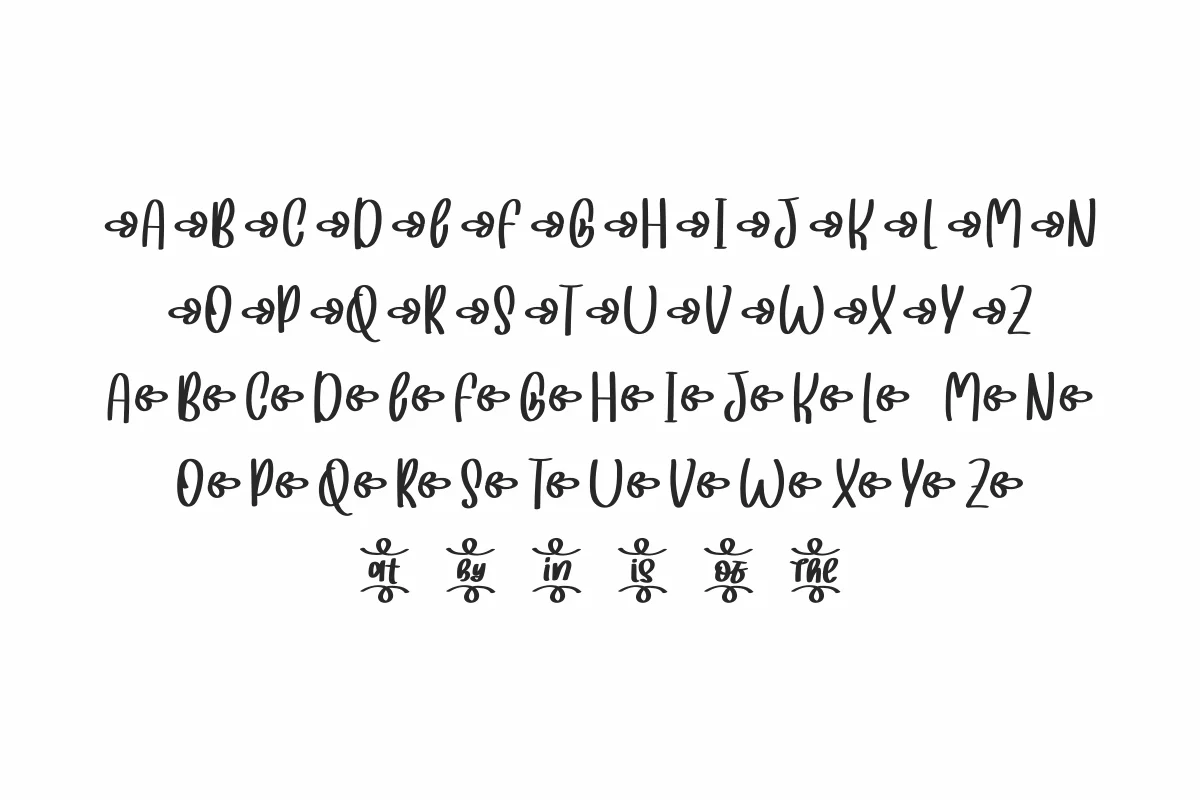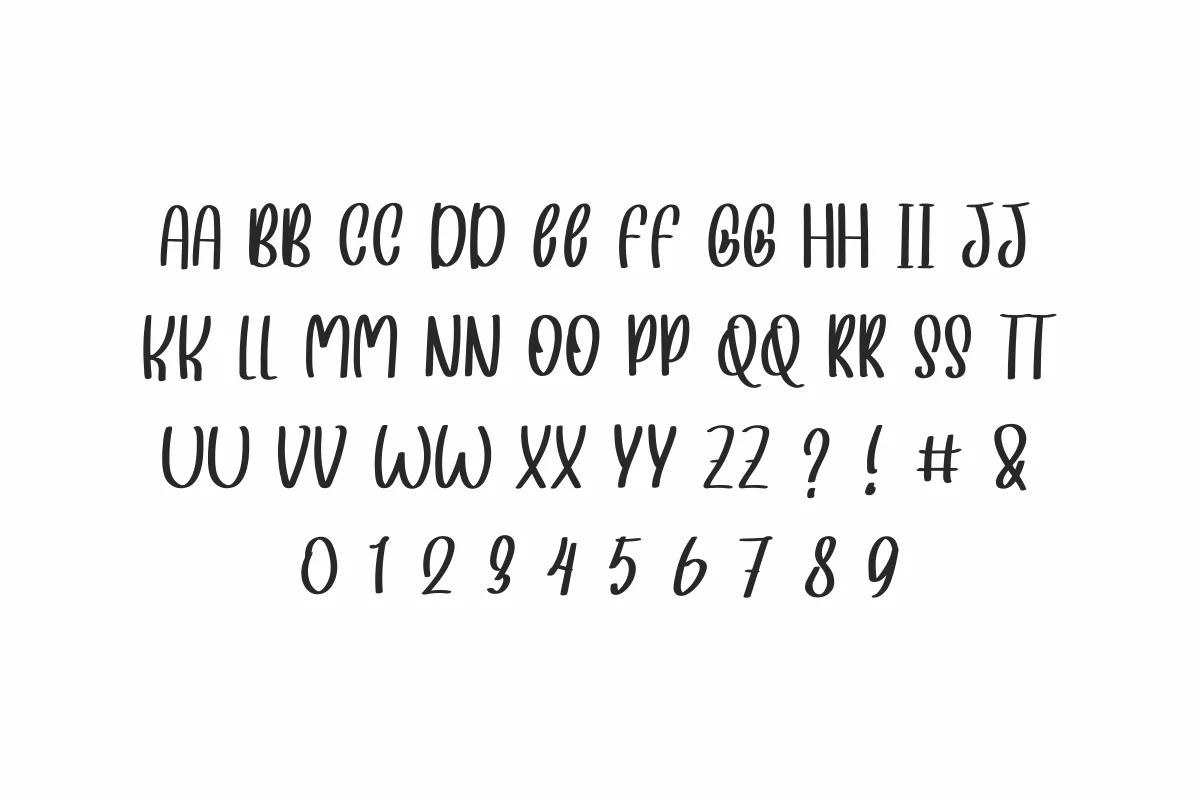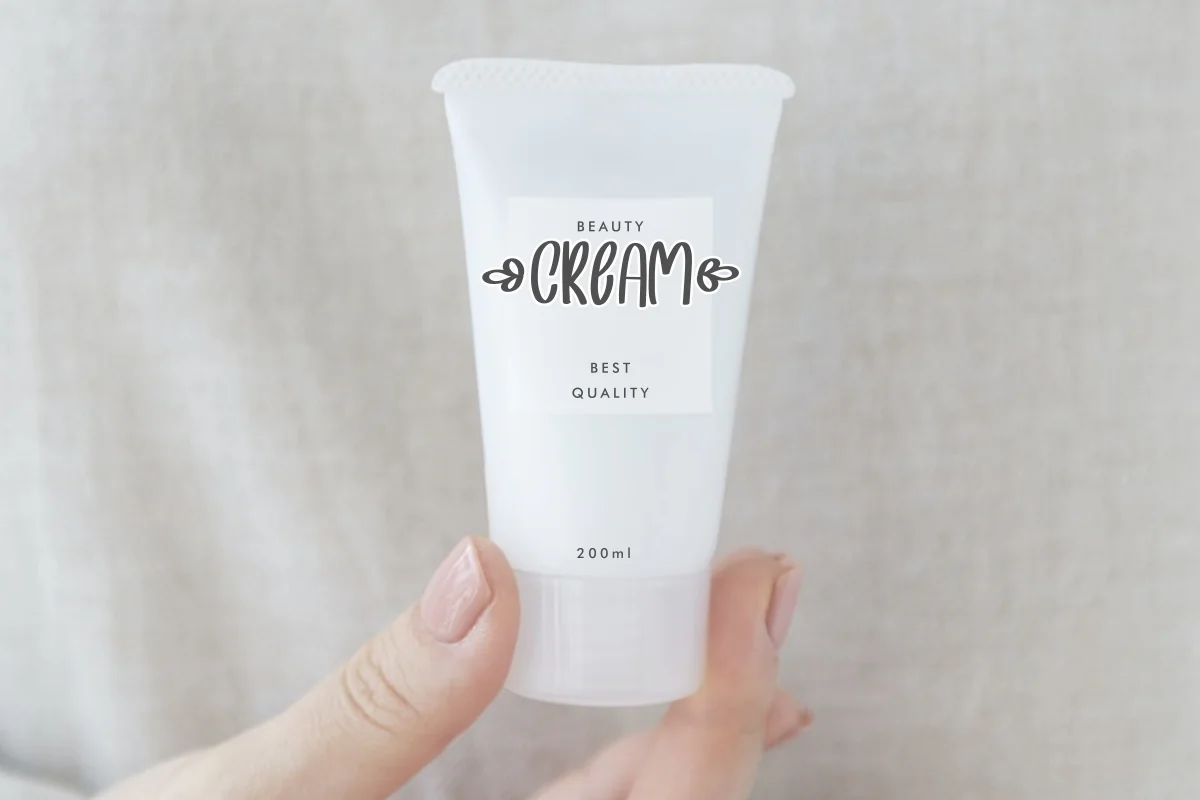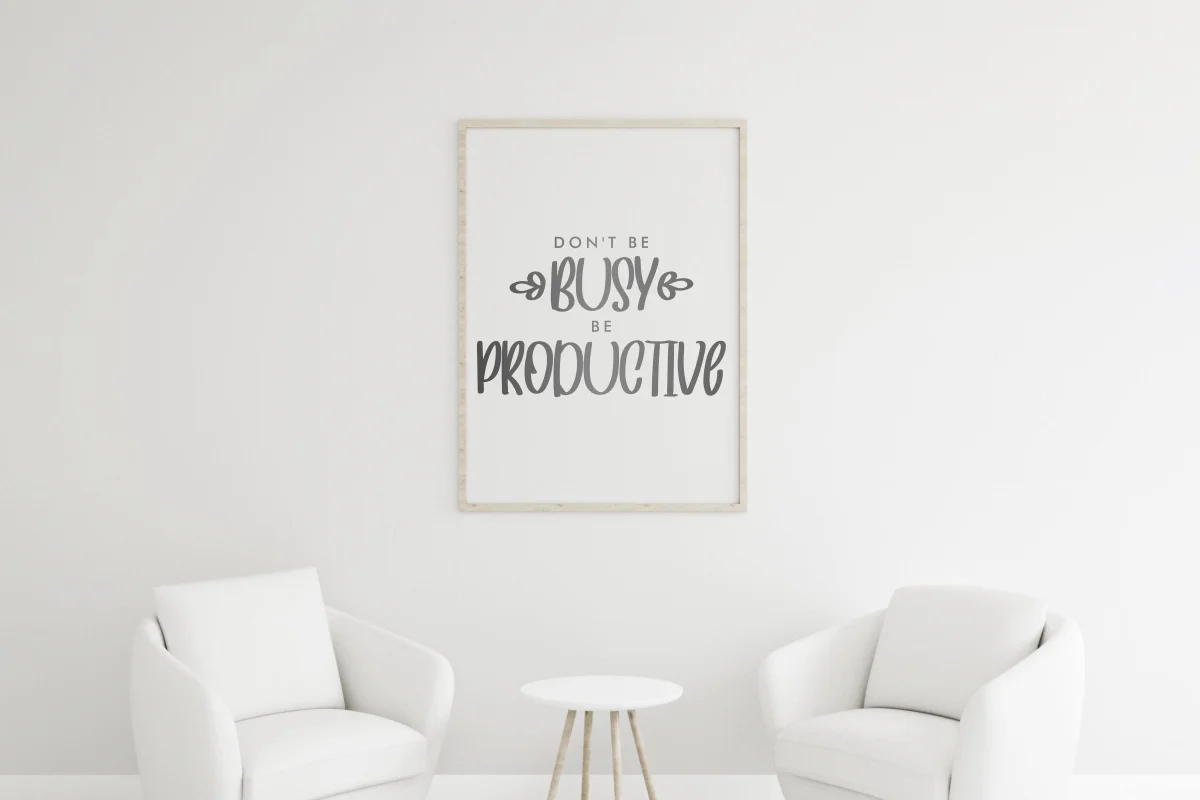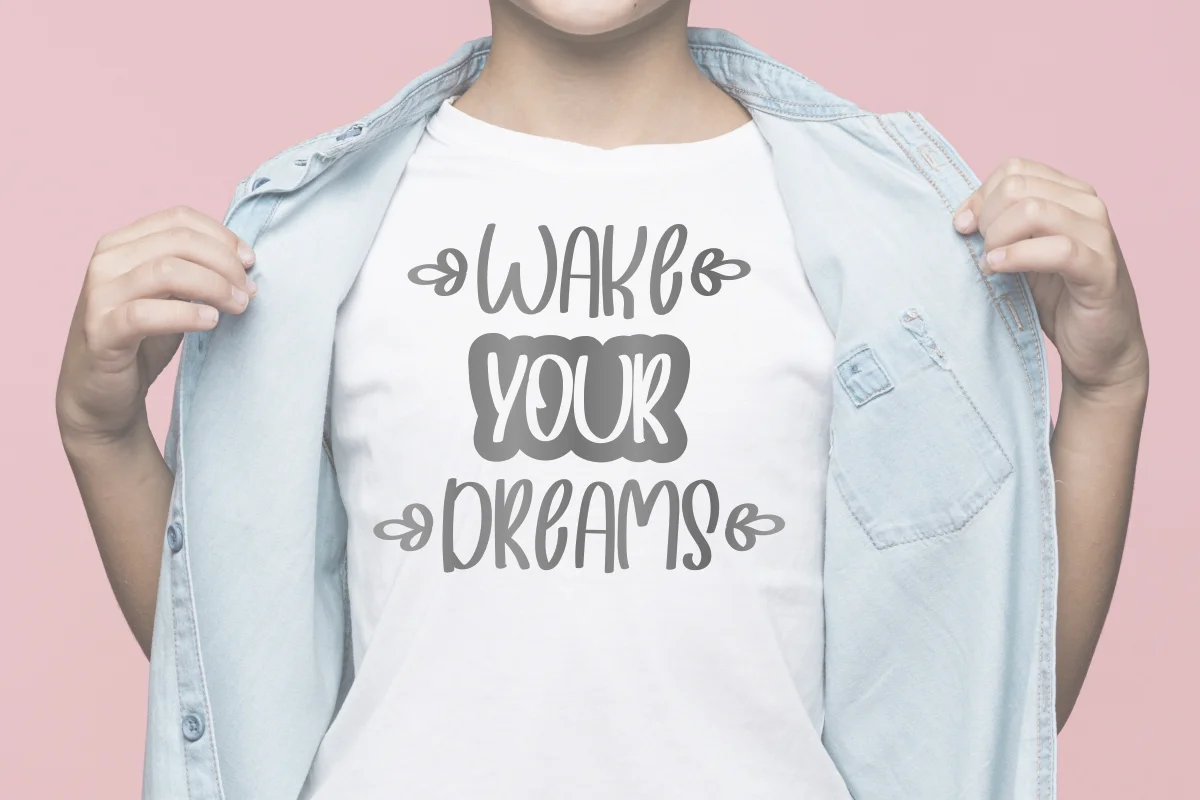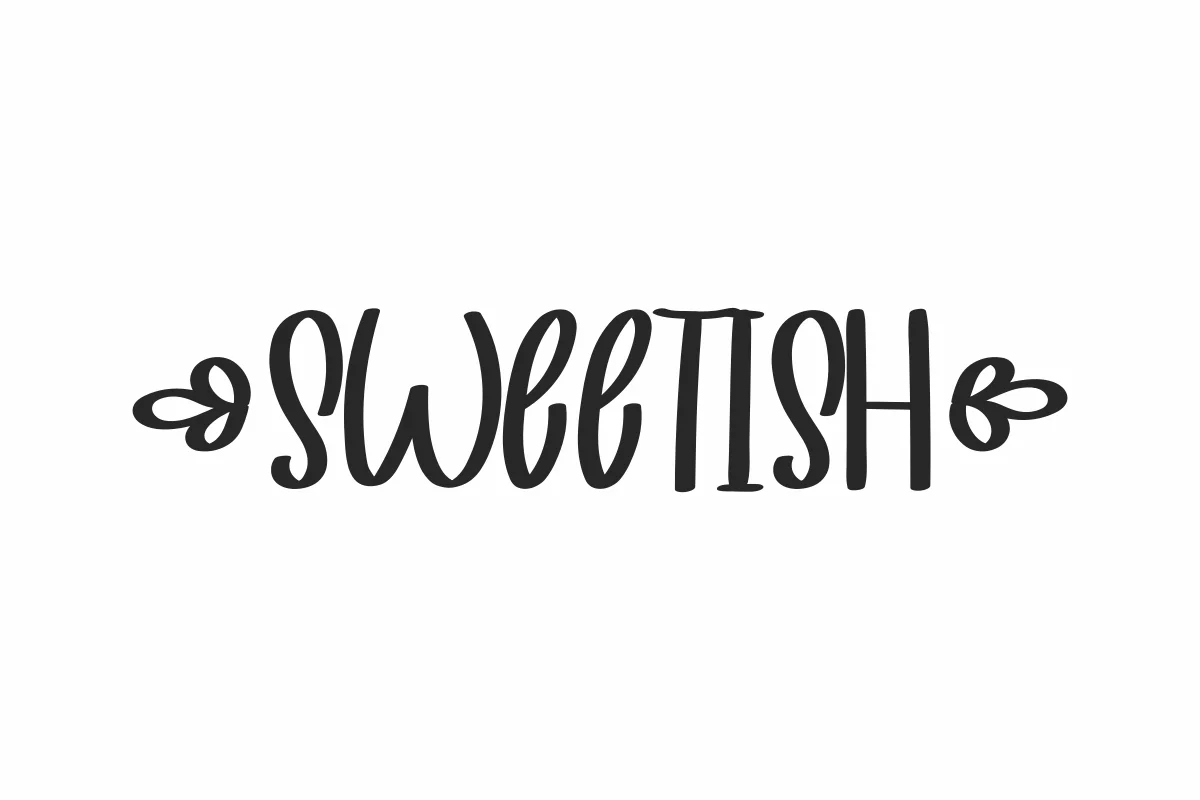
SWEETISH
Looking for a font that adds a touch of charm and elegance to your designs? SWEETISH Font is here to make your creative projects pop with personality. Crafted with love and precision, this beautiful handwritten script is perfect for branding, social media posts, wedding invitations, product packaging, and so much more.
With smooth curves and a modern display vibe, SWEETISH Font brings warmth and sophistication to every letter. Whether you’re a designer, entrepreneur, or DIY enthusiast, you’ll fall in love with its versatility and timeless aesthetic.
• Beautifully handcrafted for a premium feel
• Ideal for logos, quotes, and custom merchandise
SWEETISH Font is a font duo font famliy with four different styles. Originally made by NihStudio Font Designers :  Saepul and Sarah. On the package you will get :
The SWEETISH has two styles : Regular and Inline style